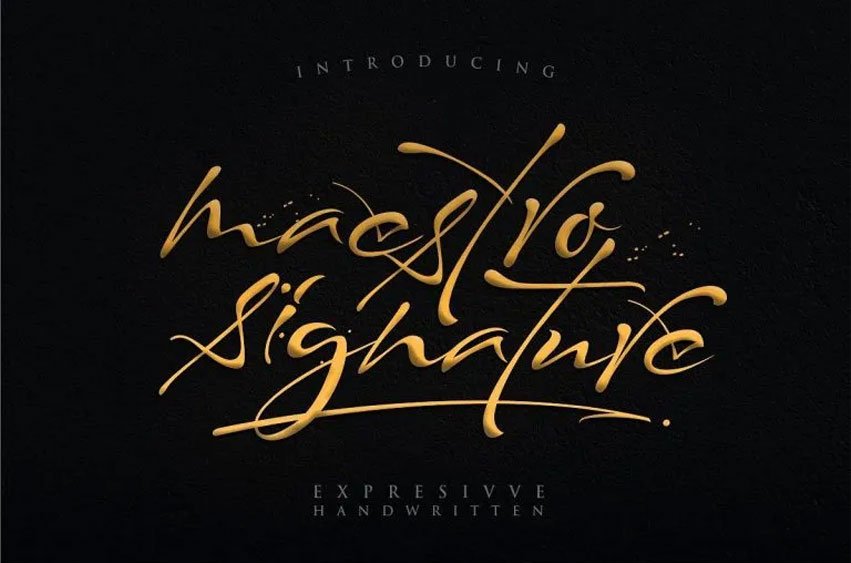
Maestro Signature Font is a notable script calligraphy system inspired by luxury and glam. This typeface can be used for creating impressive social media posts and headlines..